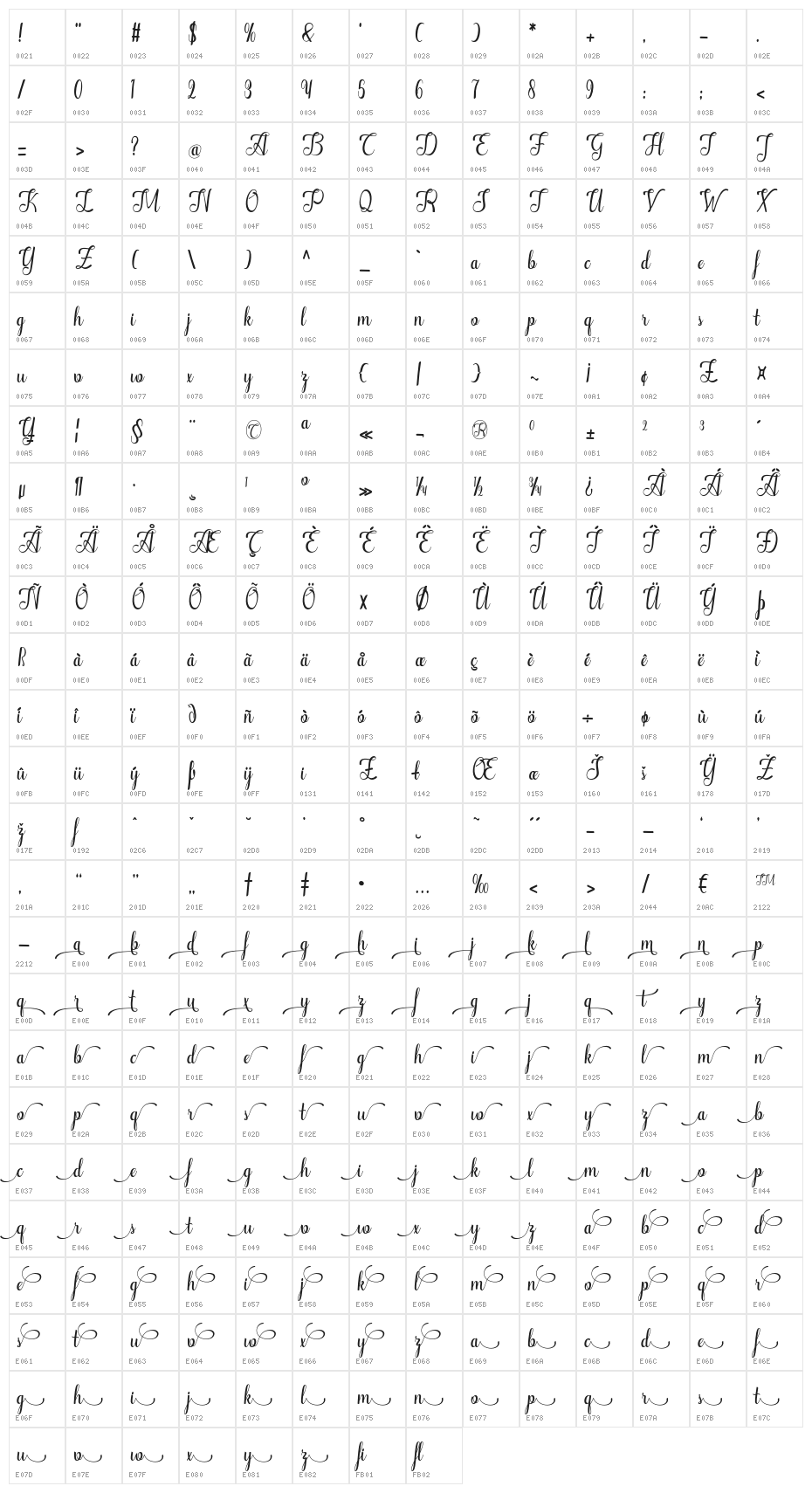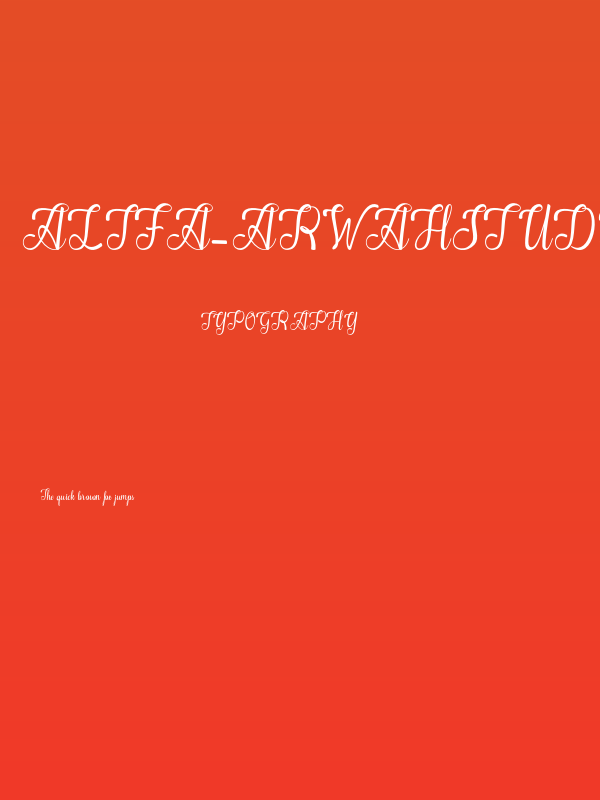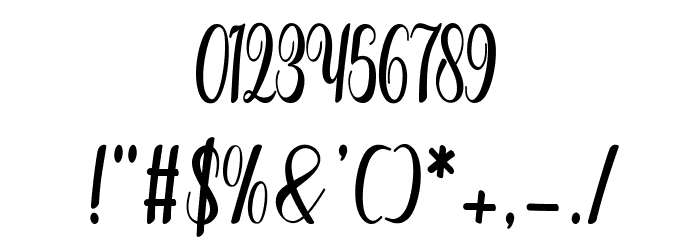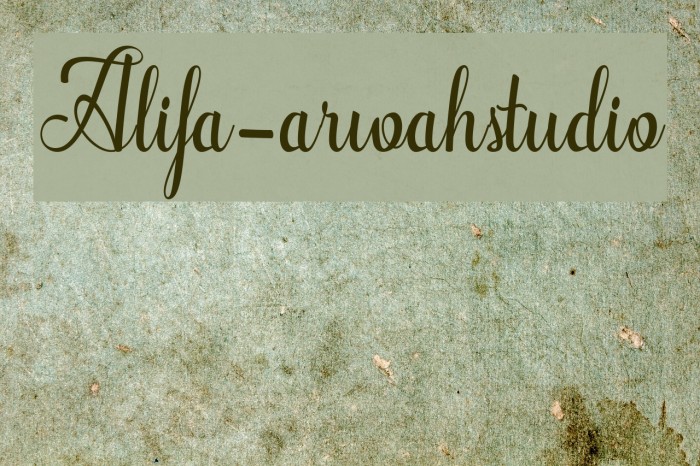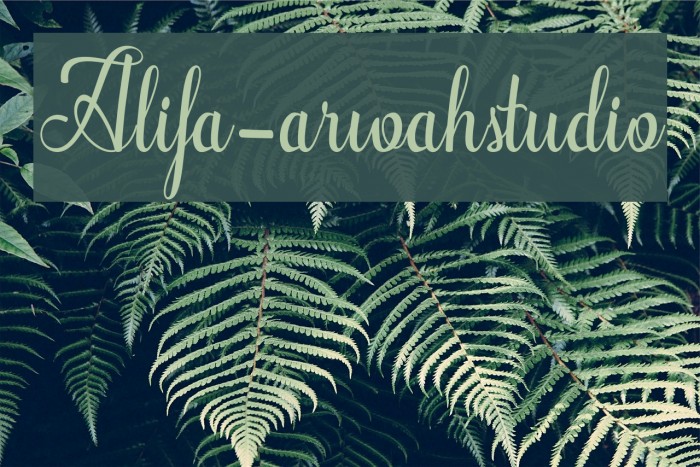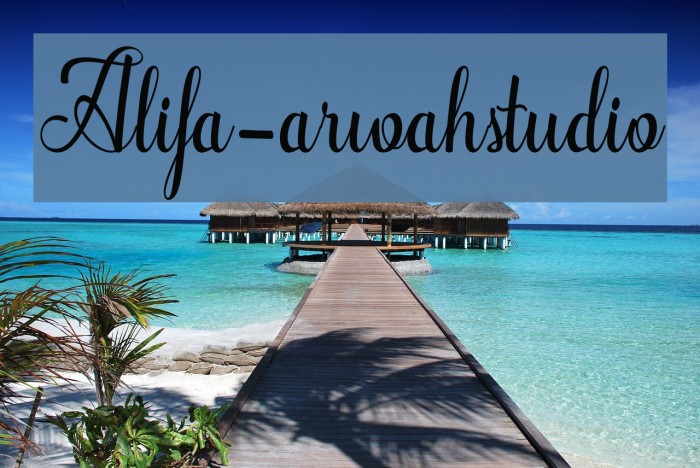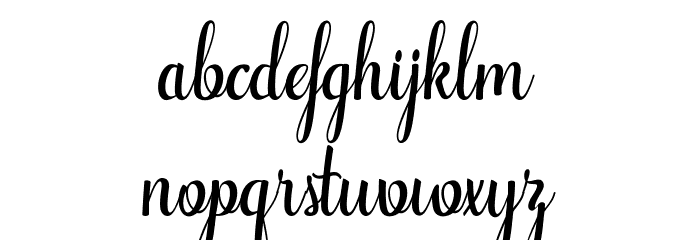
Alifa-arwahstudio Font
Alifa-arwahstudio Description
This elegant script font features a flowing, cursive style with intricate loops and swashes, giving it a sophisticated and artistic appearance. The uppercase letters are adorned with decorative flourishes, while the lowercase letters maintain a smooth and connected form, enhancing readability. The numerals and special characters are designed with the same graceful curves, ensuring consistency throughout. This font exudes a sense of elegance and charm, making it ideal for projects that require a touch of class and refinement.
| Overall Style | Elegant, Artistic |
| Use Case | Logos, Invitations, Decorative text |
| Proposed Projects | Ideal for wedding invitations, elegant branding, greeting cards, and high-end product packaging. |